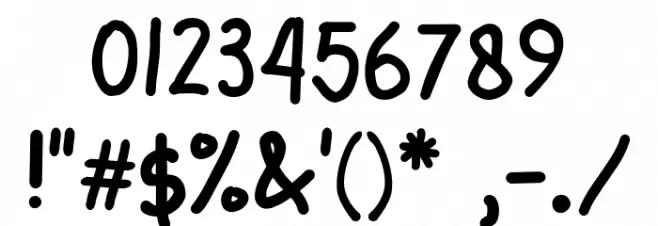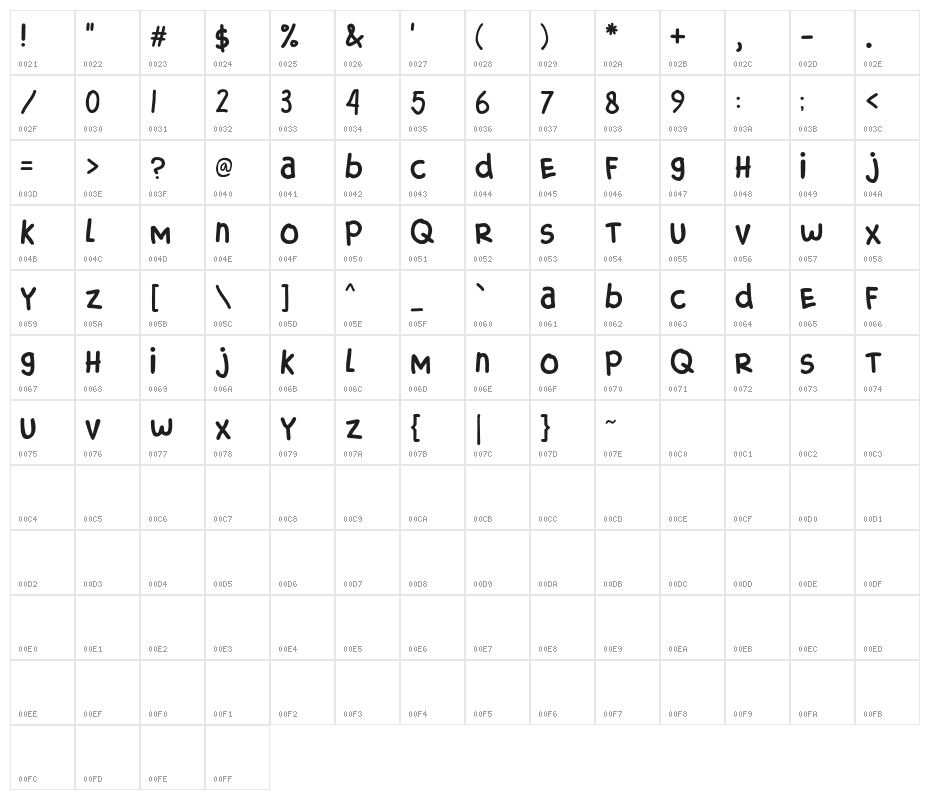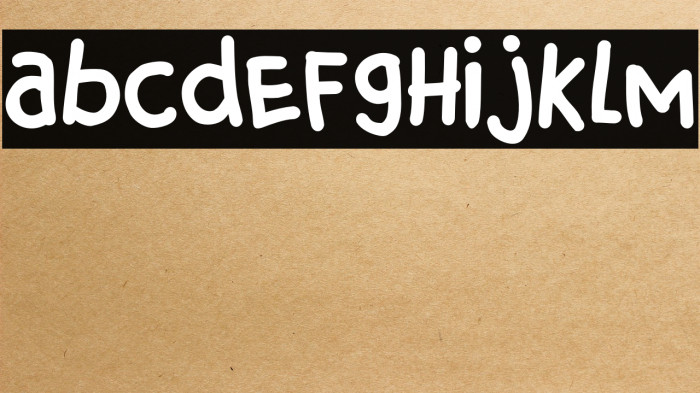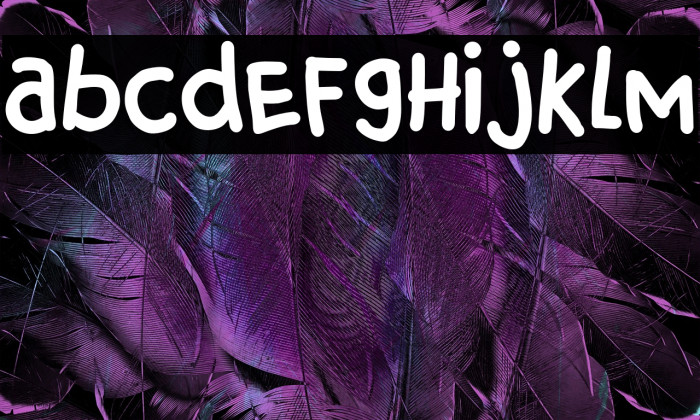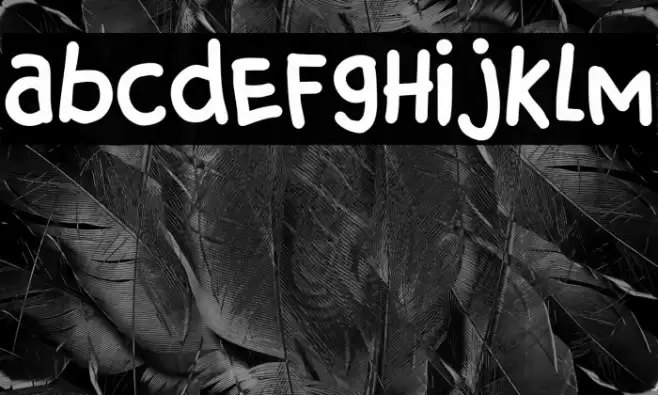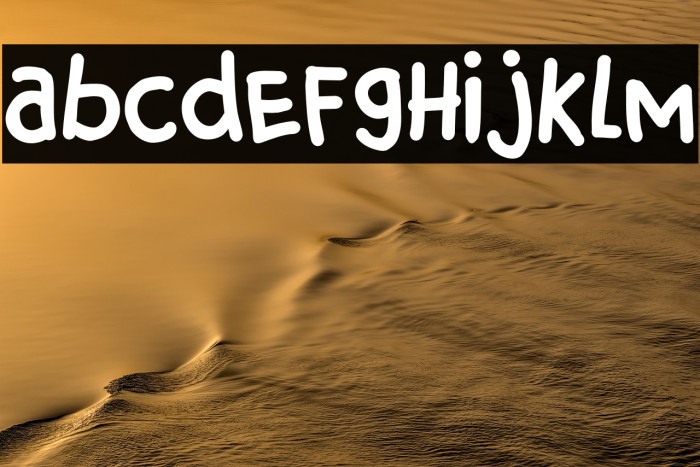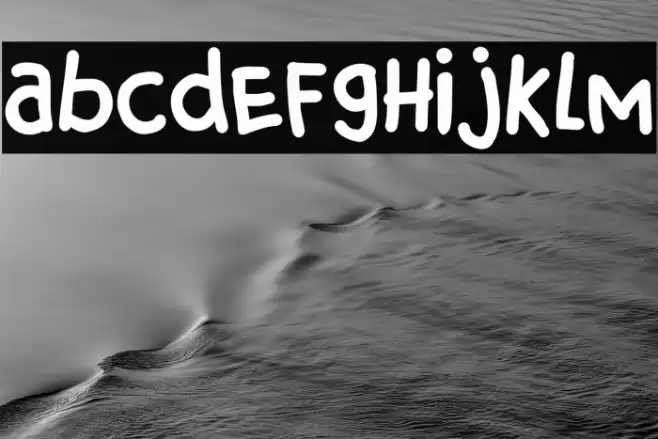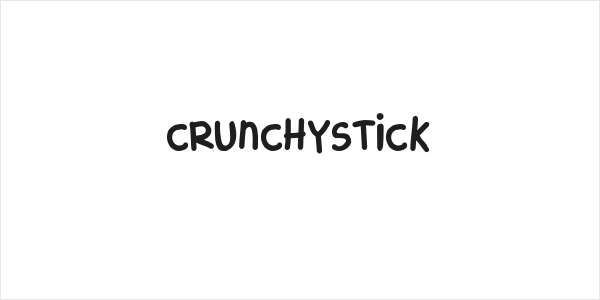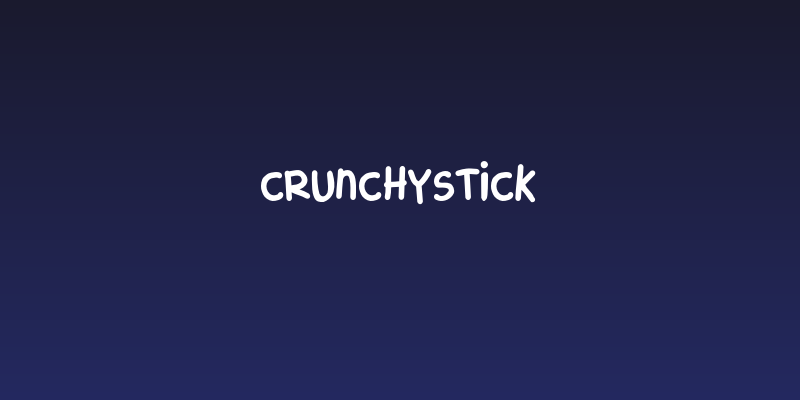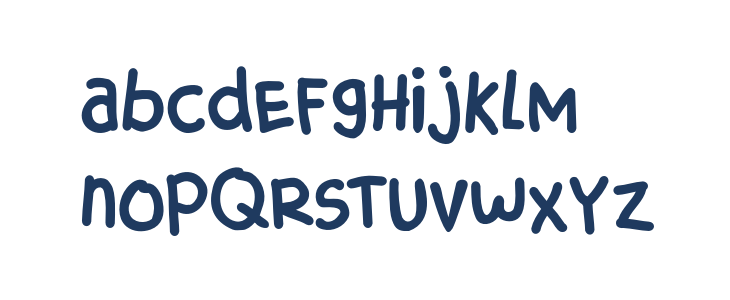
CRUNCHYSTICK Font
CRUNCHYSTICK Description
This playful and bold font features a handwritten style with rounded edges and a casual appearance. The characters are slightly irregular, adding a whimsical and friendly touch. The uppercase and lowercase letters maintain a consistent flow, while the numbers and special characters complement the overall style. The font's thick strokes and rounded forms make it highly legible and suitable for informal and creative projects.
| Proposed Projects | Ideal for children's books, comic strips, playful branding, greeting cards, and informal posters. |